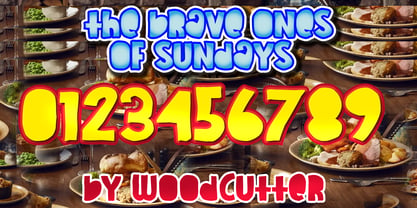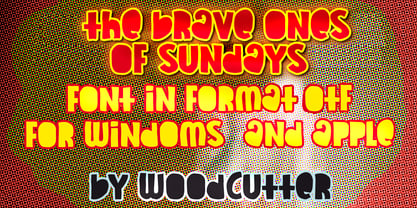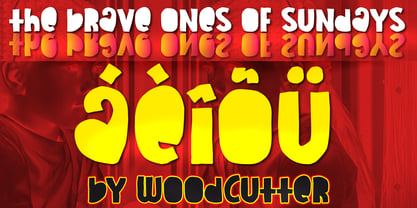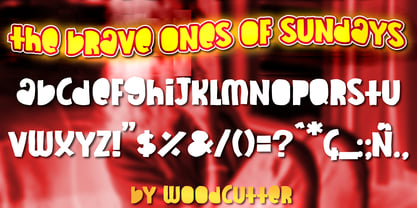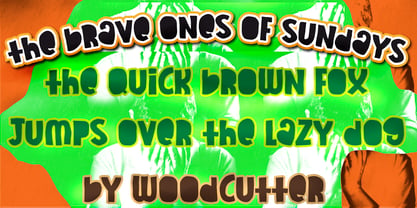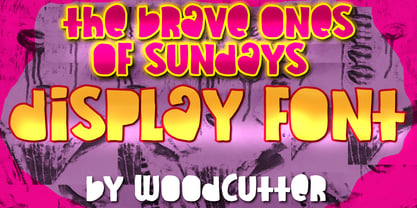
The Brave Ones Of Sundays
by Woodcutter
The The Brave Ones Of Sundays Font Family was designed by Jordi Manero and published by Woodcutter. The Brave Ones Of Sundays contains 1 styles. More about this family
"The Brave Ones of Sundays" is an expressive and unconventional typeface that blends visual innocence with graphic strength in a single concept. Designed with a free mix of uppercase and lowercase letters and full accent support, this font deliberately breaks traditional typographic rules to create a fresh, naïve, and surprisingly powerful visual language. Its childlike aesthetic is not fragile or light, but solid, bold, and full of personality. One of the most distinctive features of "The Brave Ones of Sundays" is the removal of internal counters that typically define many letters, turning them into compact, continuous shapes. This approach reinforces visual impact and transforms each character into an almost sculptural form. Additionally, the letters intentionally vary in size, deforming across the composition and creating an irregular rhythm that adds movement, playfulness, and a highly recognizable identity. The result is a joyful, imperfect, and deeply human typeface that communicates spontaneity, warmth, and creativity without sacrificing strength. "The Brave Ones of Sundays" works especially well in projects seeking an optimistic, alternative, and memorable tone, such as creative branding, illustration, posters, editorial covers, contemporary children’s design, packaging, or cultural communication. This typeface is ideal for designers looking to escape rigidity and predictability, embracing a free and expressive aesthetic that proves childish can also be bold, confident, and visually commanding.